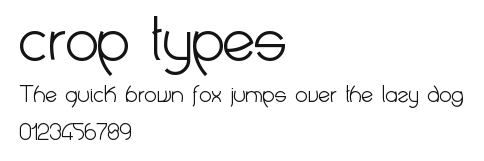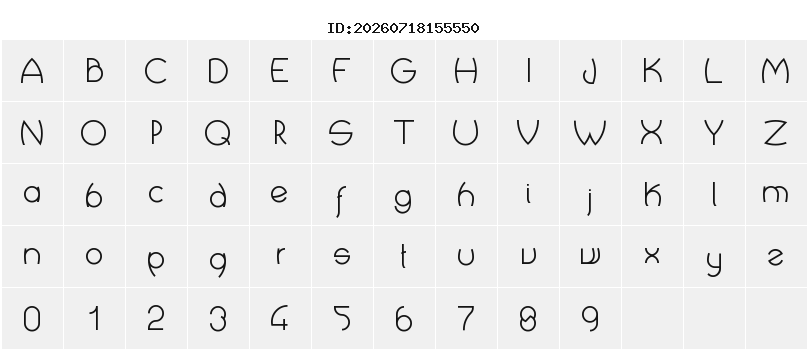
• Font Name: crop types
• Font ID: crop types
• Full Font Name: crop types
• PostScript Name: croptypes
About crop types.ttf
crop types.ttf is a modern, elegant sans-serif font designed for ultimate readability and visual harmony. Perfect for branding, headlines, web design, and print materials.